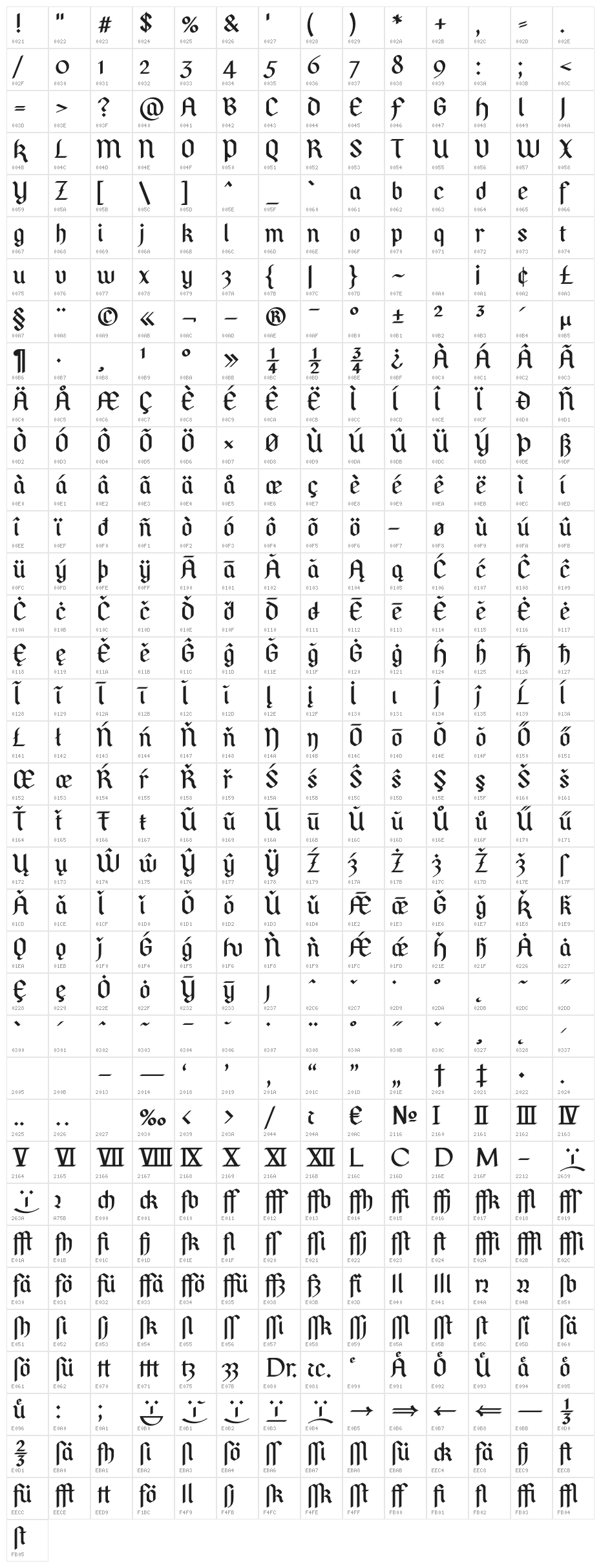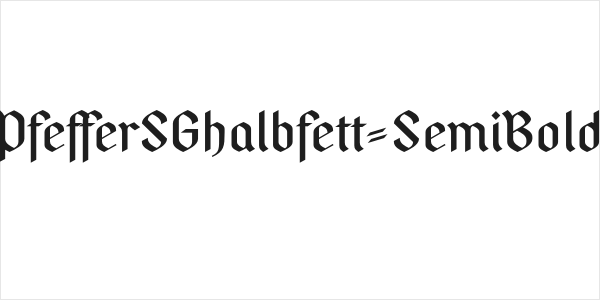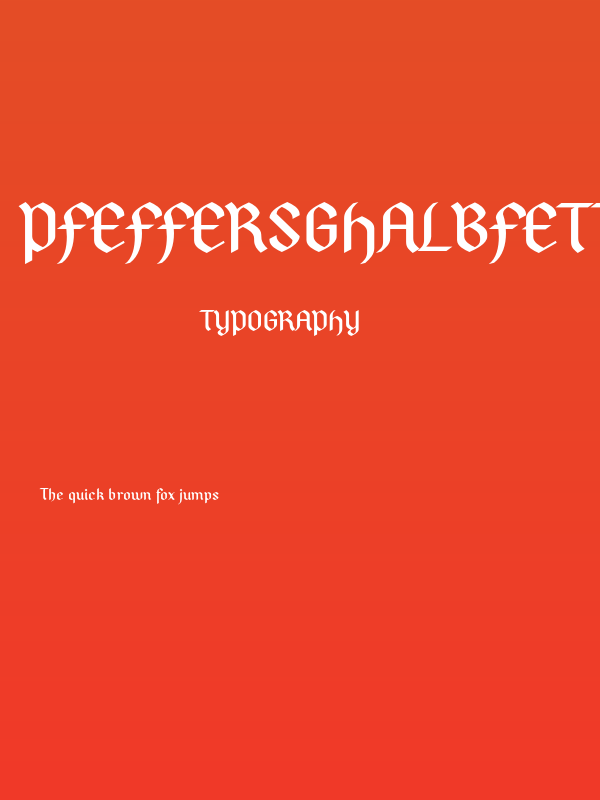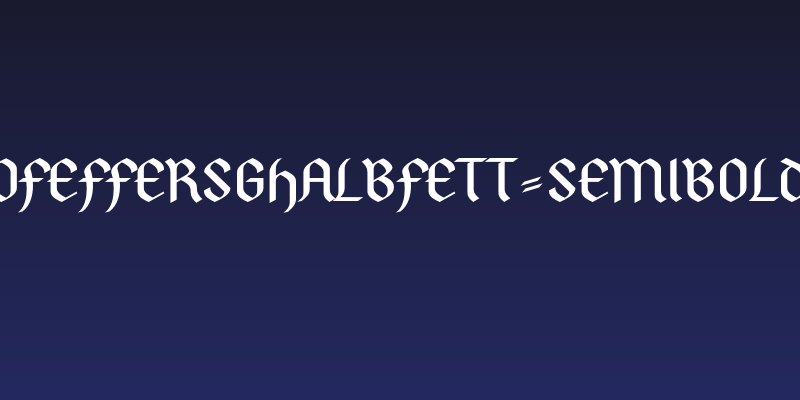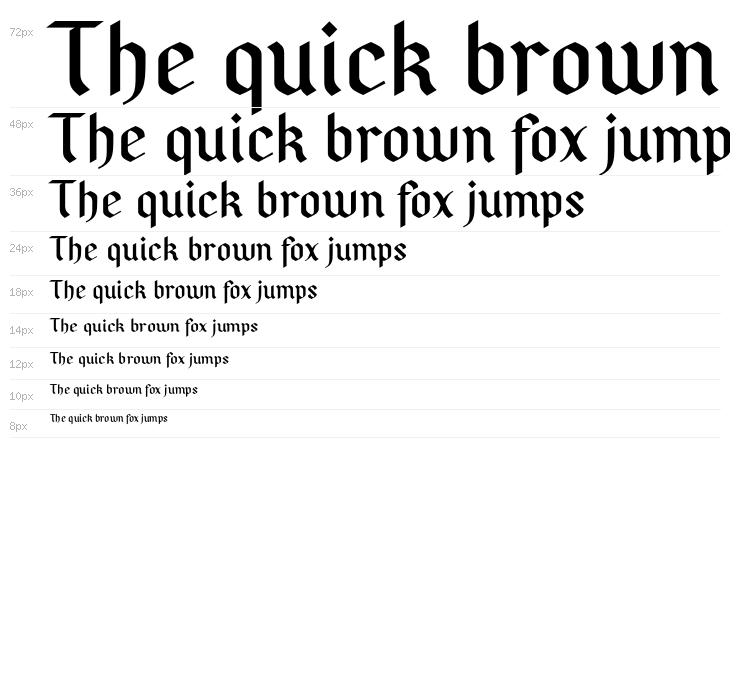
PfefferSGhalbfett-SemiBold Font
PfefferSGhalbfett-SemiBold Description
This font exhibits a strong, angular style reminiscent of traditional blackletter typefaces. The characters are sharply defined with a distinct medieval influence, featuring pointed serifs and a bold presence. The uppercase letters are particularly striking, with a commanding presence that demands attention. The lowercase letters maintain the same angular aesthetic, providing a cohesive look across the typeface. Numerals are crafted with the same attention to detail, ensuring readability while maintaining the font's unique style. Special characters are included, each designed to complement the overall aesthetic.
| Proposed Projects | Ideal for projects requiring a historical or gothic touch, such as book covers, posters, or branding for themed events. |